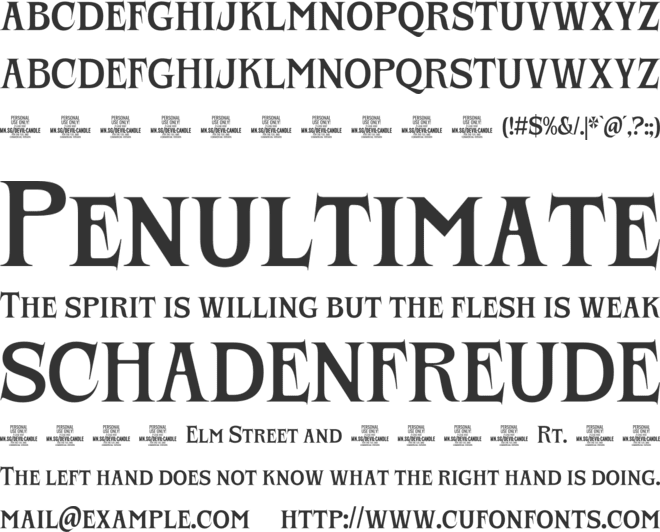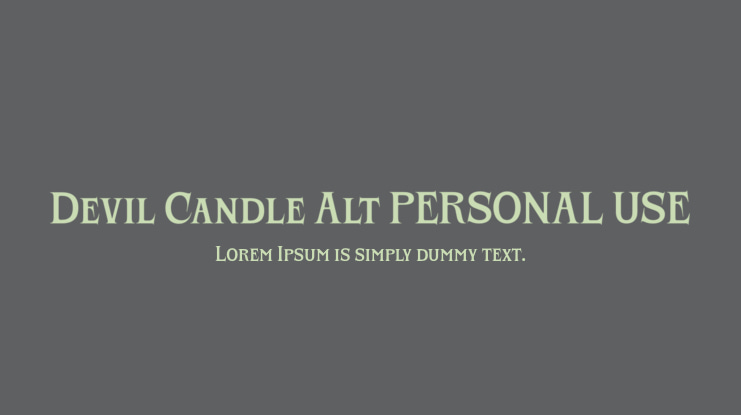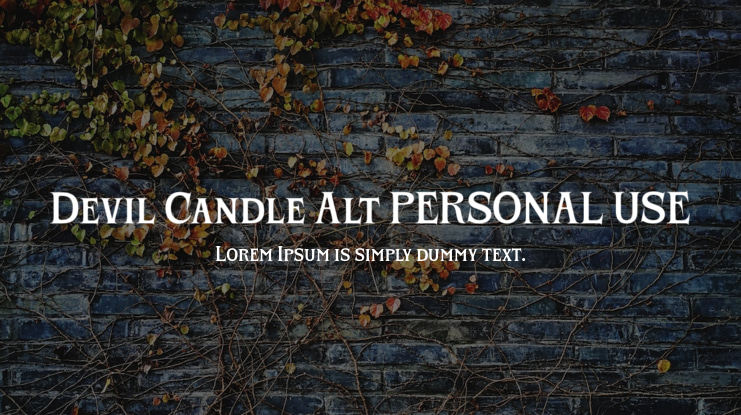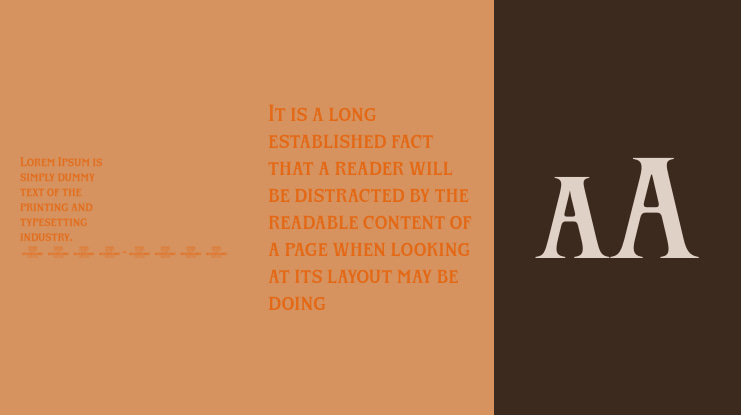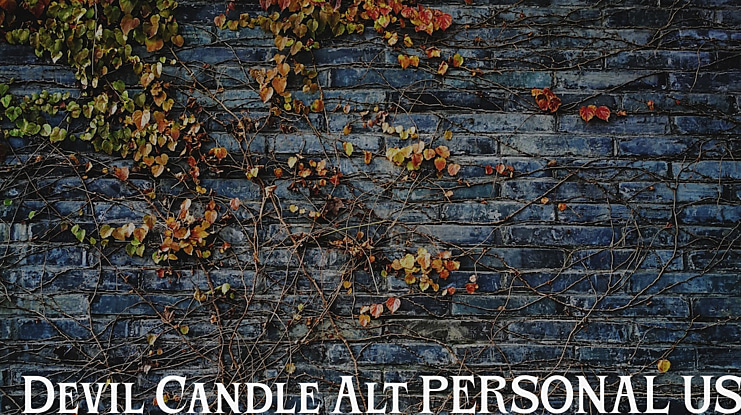
Devil Candle Alt PERSONAL USE Font Family
Devil Candle captures the essence of eerie whispers, reminiscent of the dark depths of the underworld.
Its elegant serif characters, ranging from narrow to wide, resemble the dancing flames of a devil's candle, casting an ominous glow during Halloween.